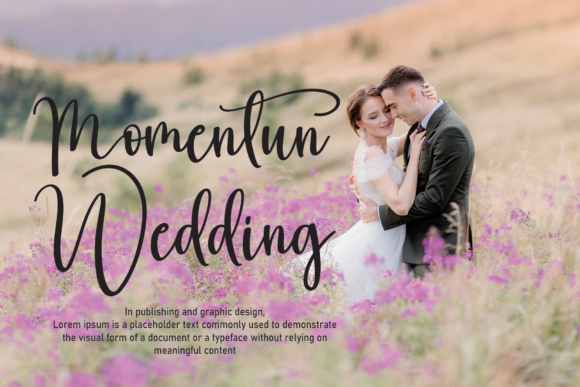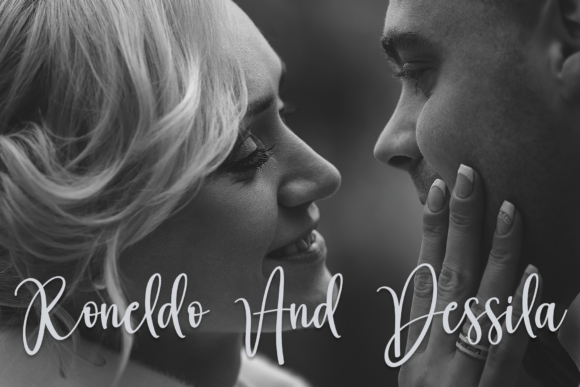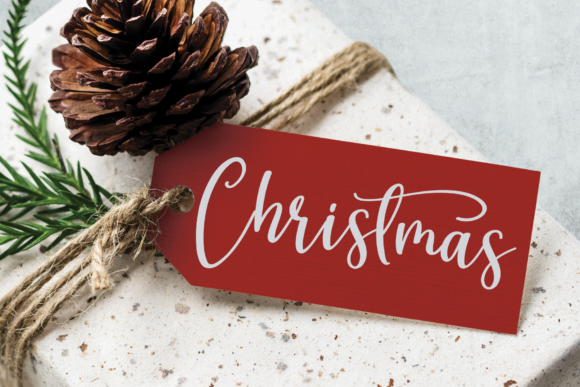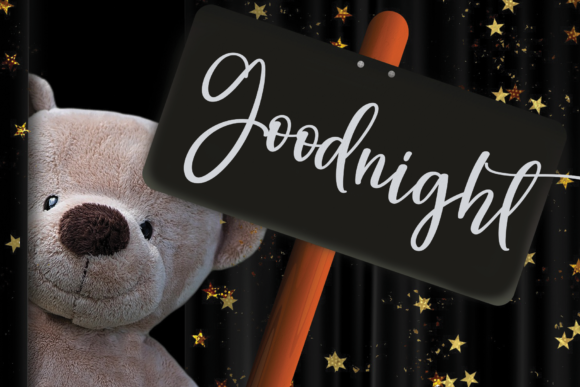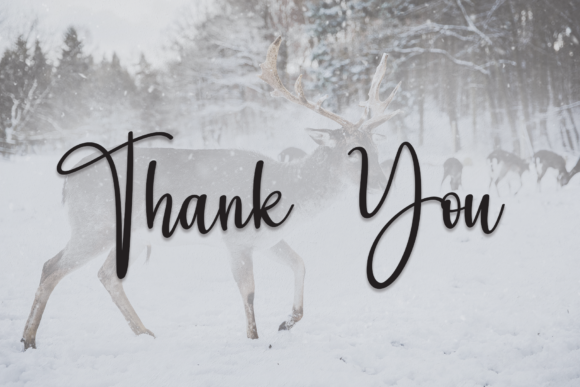
Reindeer Font
About Reindeer Font
Reindeer is an exquisite and modern handwritten font that will give you an extraordinary experience. Use it for wall displays, wedding invitations, social media post logos, advertisements, product packaging, product designs, labels, photography, watermarks, invitations, stationery, or any other project that requires a handwritten taste.